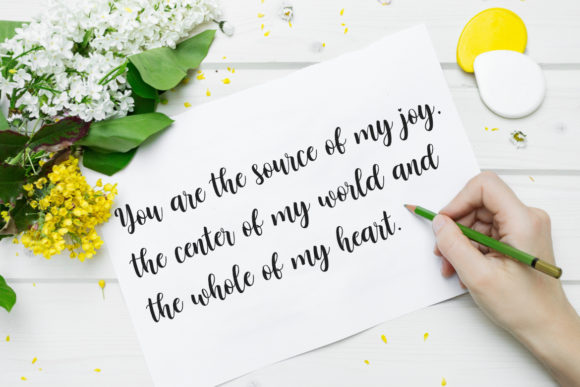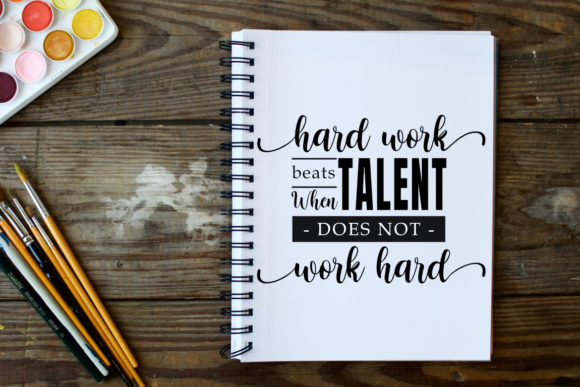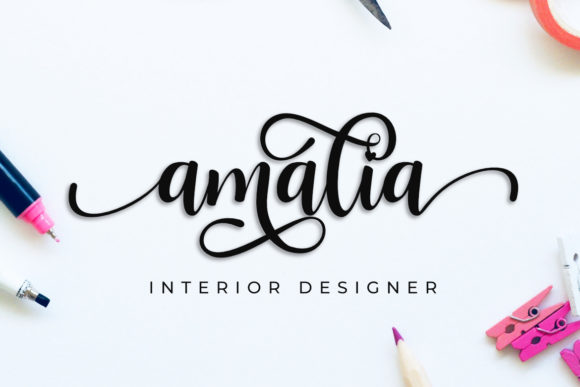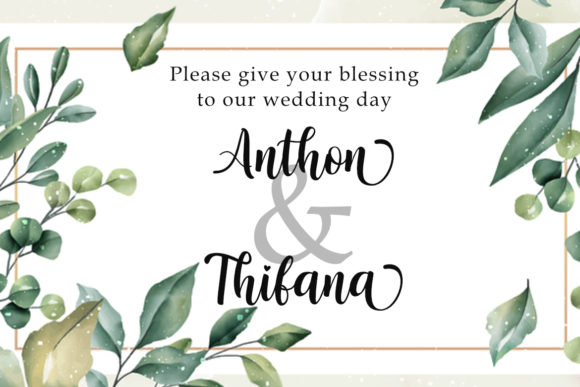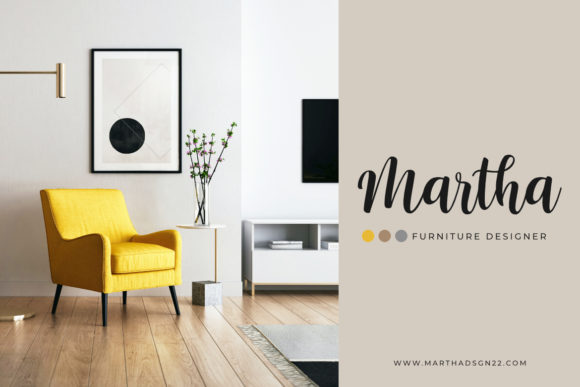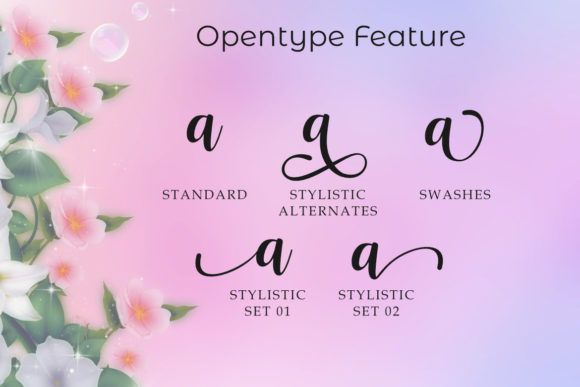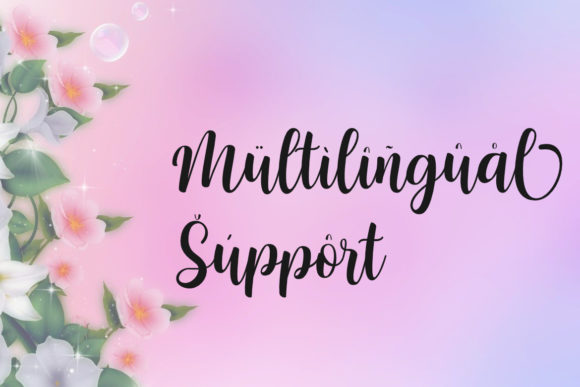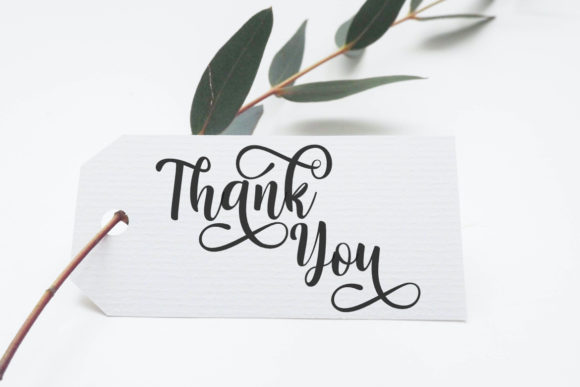
Nattasha Font
About Nattasha Font
Nattasha sounds like a captivating and versatile handwritten font that can add an elegant and sophisticated touch to a wide range of design projects. With its flowing and distinct style, it offers a timeless appeal while still feeling modern and fresh. Here are some suggestions on how to use Nattasha font to bring your projects to the highest levels:
1. Wedding Invitations: Design exquisite and romantic wedding invitations using Nattasha font to create a sense of elegance and grace.
2. Branding and Logo Design: Use Nattasha font in branding and logo design to convey a refined and stylish identity for your business.
3. Social Media Graphics: Create eye-catching social media posts and graphics using Nattasha font to engage your audience with its elegant typography.
4. Quote Prints: Design beautiful quote prints using Nattasha font to highlight inspirational and meaningful messages.
5. Greeting Cards: Use Nattasha font in greeting card designs for special occasions, such as birthdays, anniversaries, and holidays.
6. Book Covers: Incorporate Nattasha font in book covers to add a touch of sophistication and elegance to the design.
7. Art Prints: Create stunning art prints featuring illustrations or photographs with Nattasha font for a chic and artistic look.
8. Stationery Design: Use Nattasha font in stationery designs, such as letterheads and business cards, for a polished and professional appearance.
9. Blog Headers: Incorporate Nattasha font in blog headers and featured images to create a captivating and stylish visual identity.
10. Packaging Design: Use Nattasha font in packaging designs for luxury and high-end products that require an elegant presentation.
11. Event Invitations: Design elegant event invitations using Nattasha font to set the tone for special occasions.
12. Magazine Layouts: Incorporate Nattasha font in magazine layouts for articles or content that require a touch of sophistication.
13. Calligraphy Art: Create beautiful calligraphy art pieces using Nattasha font for a timeless and artistic look.
14. Inspirational Graphics: Design inspirational graphics and posters using Nattasha font to uplift and inspire your audience.
15. Menu Design: Use Nattasha font in menu designs for upscale restaurants or cafes that want to convey a sense of elegance and class.
16. Beauty and Fashion Branding: Incorporate Nattasha font in branding for beauty and fashion-related businesses to evoke a sense of luxury.
17. Packaging for Special Occasions: Design packaging for special occasions, such as weddings or holidays, using Nattasha font for a touch of sophistication.
18. Personalized Gifts: Use Nattasha font to personalize gifts with custom messages for a heartfelt and thoughtful touch.
19. Wedding Signage: Create elegant wedding signage and decorative elements using Nattasha font to enhance the overall ambiance.
20. Magazine Covers: Use Nattasha font in magazine cover designs to create a captivating and stylish first impression.
In summary, Nattasha is an elegant and flowing handwritten font that offers a wide range of design possibilities. Its PUA encoding allows easy access to various glyphs and swashes, making it even more versatile for your creative projects. Whether it’s for weddings, branding, social media, or any other design venture, Nattasha font can elevate your projects to the highest levels with its classy and sophisticated calligraphic influences combined with a contemporary and fresh feel. Fall in love with this font and let it add a touch of elegance and beauty to your designs!